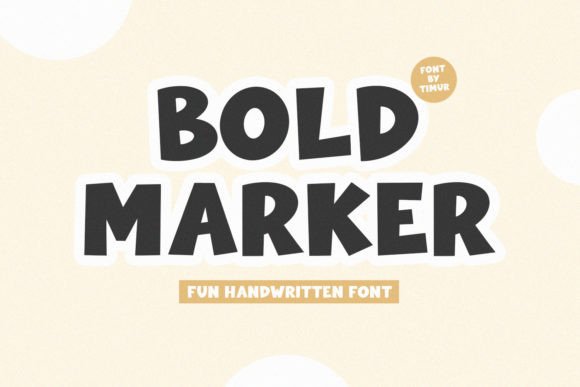
Introducing Bold Marker - the ultimate display font designed to take your designs to the next level! Created by Timur type, this unique font is a must-have for anyone looking to add some personality and pizzazz to their creative projects.
With its bold, eye-catching lines and carefully crafted design, Bold Marker is the perfect choice for anyone looking to make a statement. Whether you're working on product packaging, branding projects, magazines, social media, or even weddings, Bold Marker is sure to leave a lasting impression.
But what really sets Bold Marker apart from the competition is its versatility. Unlike other display fonts, Bold Marker is equally at home in both formal and informal settings. With its clean lines and elegant curves, this font is the perfect choice for everything from corporate presentations to personal invitations.
And if you're looking for the best font for dashboard design, look no further than Bold Marker. With its easy-to-read design and eye-catching aesthetic, this font is the perfect choice for anyone looking to create an unforgettable user experience.